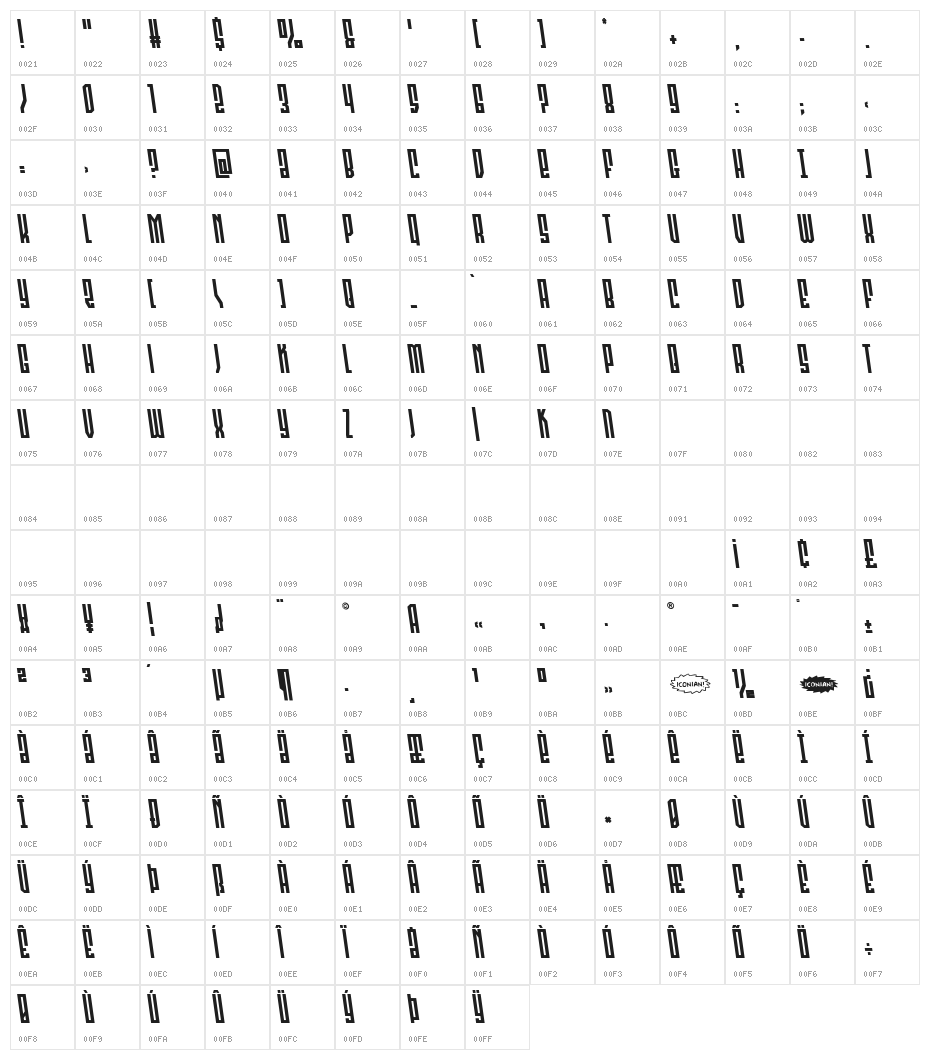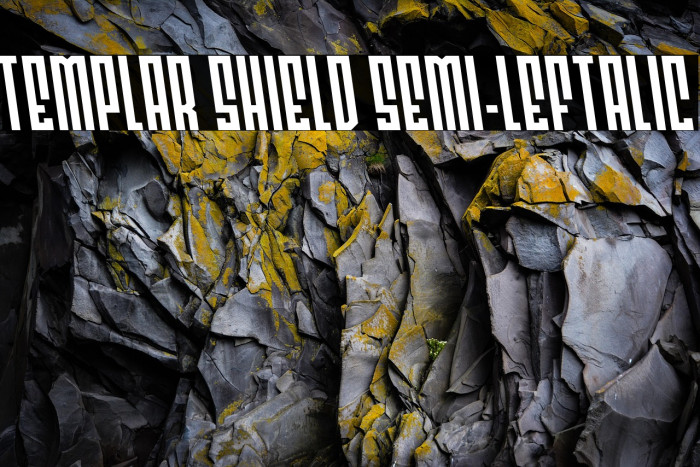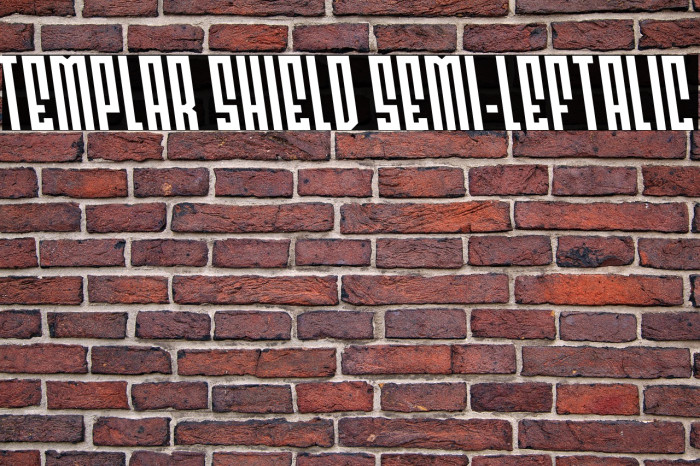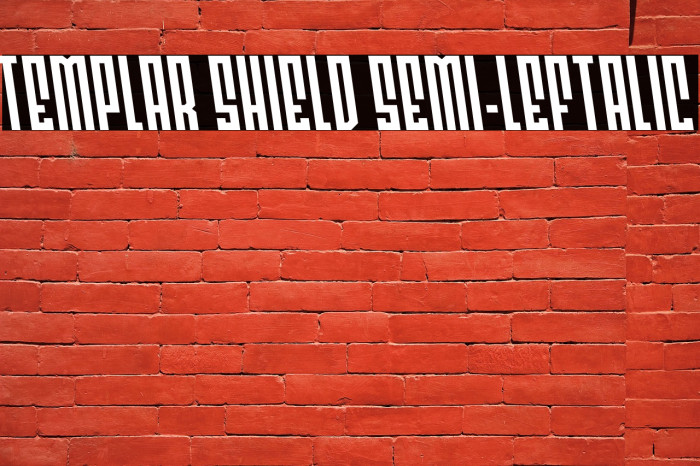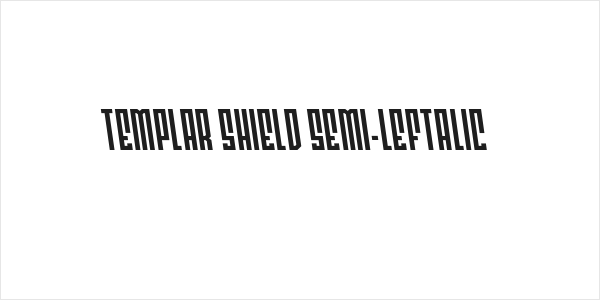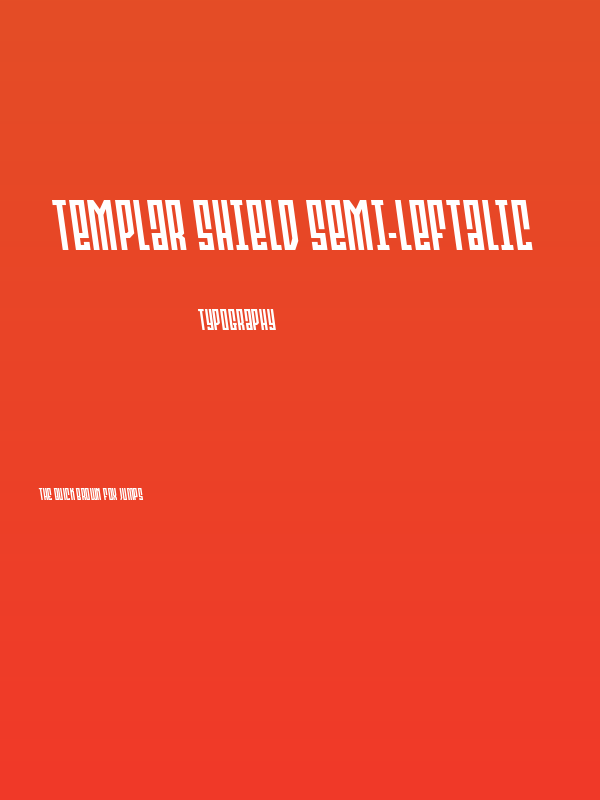
Templar Shield Semi-Leftalic Font
Templar Shield Semi-Leftalic Description
This font features a bold, angular design with a distinct geometric style. The characters are sharply defined with a consistent slant to the left, giving a dynamic and modern appearance. The uppercase and lowercase letters maintain a uniform height, enhancing readability while adding a unique flair. The numbers and special characters follow the same angular and slanted design, ensuring a cohesive look across all glyphs. This font's boldness and distinct style make it stand out, ideal for projects that require a strong visual impact.